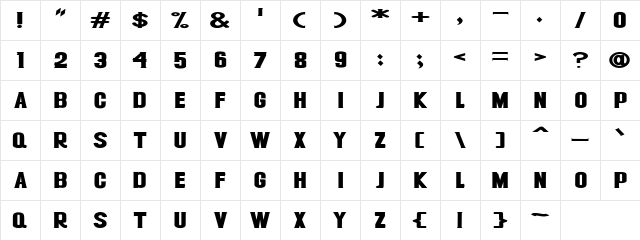
RACTOR Regular Free Font
RACTOR Regular
Design Context for RACTOR
RACTOR is a composed and adaptable typeface that performs quietly and consistently across a wide range of design contexts.
Pro Tip: Use RACTOR in both headline and body roles to test its range before committing to a single application.